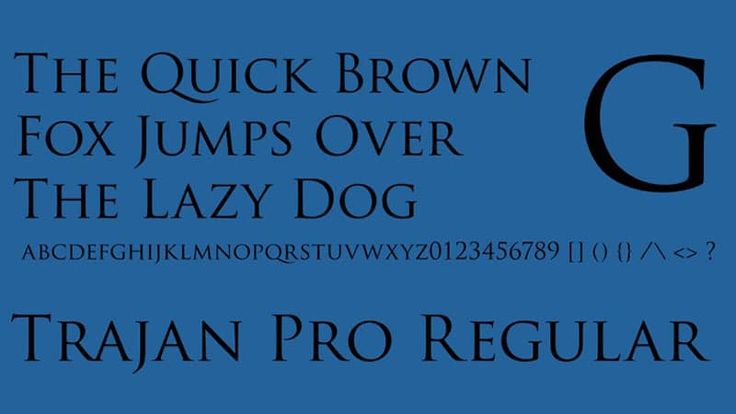
Detailed information on the trajan bold font:
Trajan bold font free download. This font available for windows 7 and mac os in truetype (.ttf) and opentype (.otf) format. Trajan pro is a serif font that was designed by a famous american typeface designer carol twombly. Free fonts often have not all characters and signs, and have no kerning pairs (avenue ↔ a venue, tea ↔ t ea).
The licence mentioned above the download button is just an indication. If you want to create professional printout, you should consider a commercial font. Font trajan pro 3 with the bold characteristic belongs to the trajan pro 3 font family.
The font trajan pro 3 bold is also perfect for branding projects, homeware designs, product. Trajan pro font free download the trajan pro font family was released in 1989. Trajan pro bold font comes with the traditional and fine style.
About the font trajan pro 3 bold. If you want to create professional printout, you should consider a commercial font. Perfect for the printing plans or for making your emblem or anywhere else where the work needs uniqueness.
Amazing glyphs and texture of this font designed in a unique type of design work. Many programs display new fonts. You can use the trajan pro 3 bold to create interesting designs, covers, shop and store name and logos.
This font has 493 glyphs and 1000 units of it are equal to 1 em. Trajan pro font free download. Trajan bold truetype font download free trajan bold font (45 kb) trajan bold font custom preview tool.